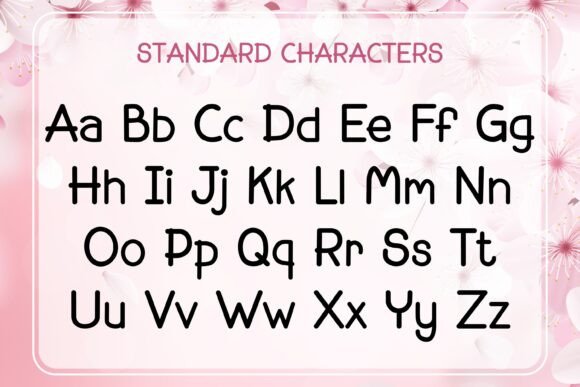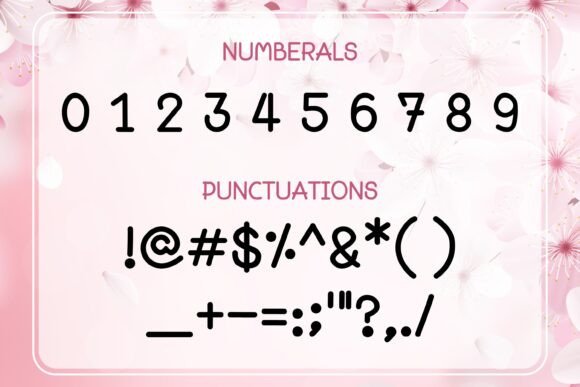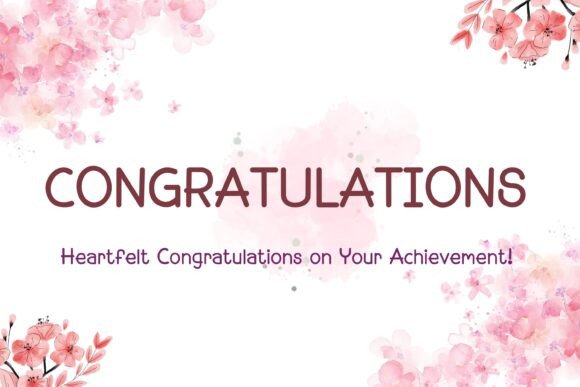
Aileen Font: The Sweet and Friendly Handwritten Font for Your Creative Projects
Are you a designer, crafter, or DIY enthusiast looking for a font that can add a personal touch to your projects? Look no further than Aileen Font, a sweet and friendly handwritten font that’s perfect for a wide range of designs. With its natural and unique style, Aileen Font is incredibly versatile and can be used for various creative projects, from digital designs to handmade crafts.
The Charm of Aileen Font
Aileen Font is a beautifully crafted handwritten font that’s designed to bring a touch of warmth and personality to your designs. Its natural and unique style makes it stand out from more traditional fonts, giving your projects a distinctive look that’s sure to capture attention. Whether you’re creating digital designs, such as social media graphics, blog posts, or website headers, or working on handmade crafts, like invitations, cards, or scrapbooking pages, Aileen Font is the perfect choice.
What Makes Aileen Font So Special?
So, what sets Aileen Font apart from other fonts? Here are just a few reasons why designers and crafters love this sweet and friendly font:
- Natural and Unique Style: Aileen Font has a distinctive, handwritten look that’s both natural and unique. Its imperfections and quirks give it a charming, personal feel that’s hard to replicate with more traditional fonts.
- Versatility: Aileen Font is incredibly versatile and can be used for a wide range of designs, from digital projects to handmade crafts. Its friendly and approachable style makes it suitable for various themes and occasions.
- Easy to Read: Despite its handwritten style, Aileen Font is surprisingly easy to read, making it perfect for body text, headings, and titles.
- Highly Customizable: Aileen Font can be easily customized to fit your design needs. You can adjust the font size, color, and style to match your project’s theme and tone.
How to Use Aileen Font in Your Projects
Now that you know why Aileen Font is so special, let’s explore some ideas for using it in your projects:
- Digital Designs: Use Aileen Font in your digital designs, such as social media graphics, blog posts, website headers, and email newsletters.
- Handmade Crafts: Add a personal touch to your handmade crafts, like invitations, cards, scrapbooking pages, and DIY home decor projects.
- Branding and Packaging: Use Aileen Font in your branding and packaging designs to give your products a friendly and approachable feel.
- Signage and Displays: Create eye-catching signage and displays with Aileen Font, perfect for events, trade shows, and retail displays.
Tips and Tricks for Working with Aileen Font
Here are some tips and tricks to help you get the most out of Aileen Font:
- Pair with Other Fonts: Experiment with pairing Aileen Font with other fonts to create interesting and unique typography combinations.
- Adjust Font Size and Color: Adjust the font size and color to match your project’s theme and tone.
- Use in Combination with Images: Use Aileen Font in combination with images to create visually appealing designs that capture attention.
- Experiment with Different Effects: Experiment with different effects, such as texture, shadow, or outline, to add depth and interest to your designs.
Aileen Font is a sweet and friendly handwritten font that’s perfect for designers, crafters, and DIY enthusiasts looking to add a personal touch to their projects. With its natural and unique style, Aileen Font is incredibly versatile and can be used for various creative projects. Whether you’re working on digital designs or handmade crafts, Aileen Font is sure to inspire your creativity and bring a touch of warmth and personality to your designs.